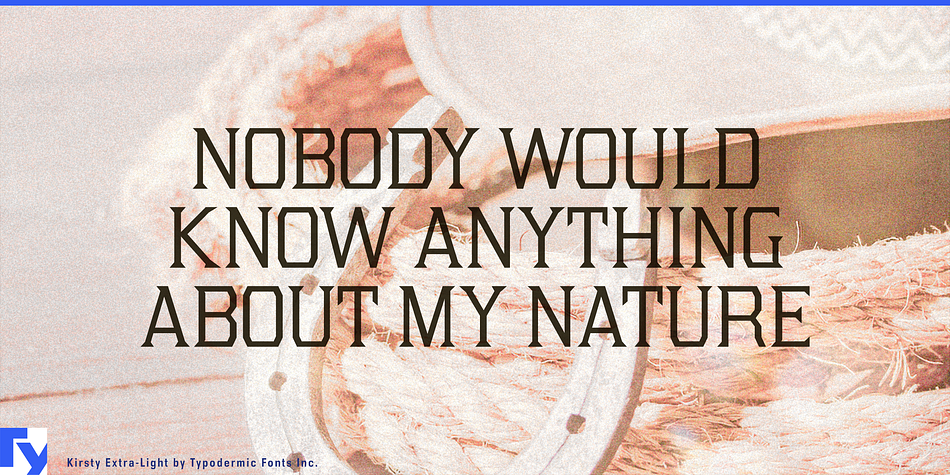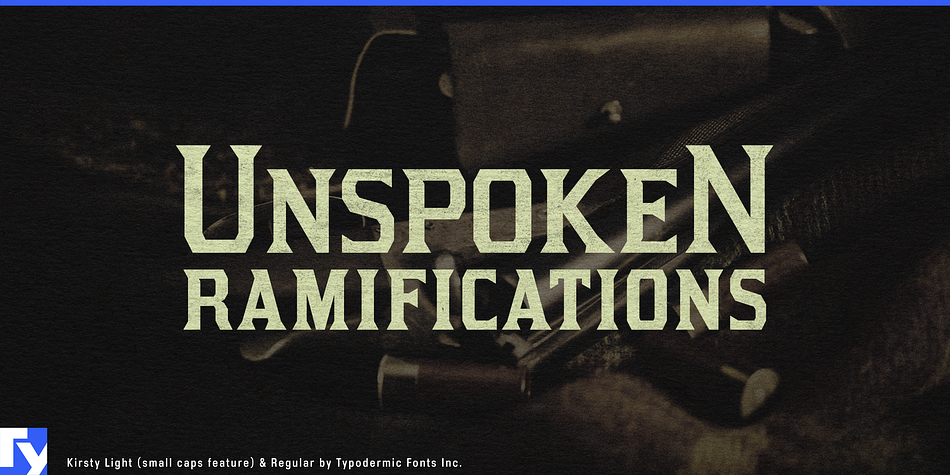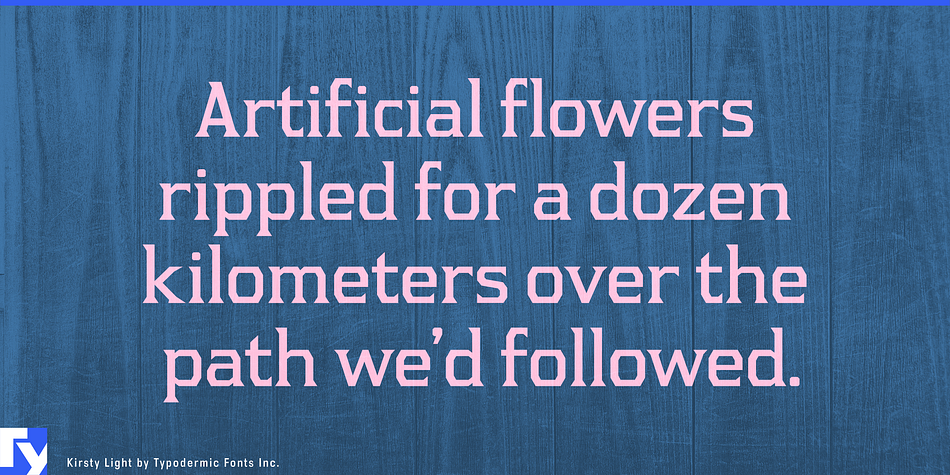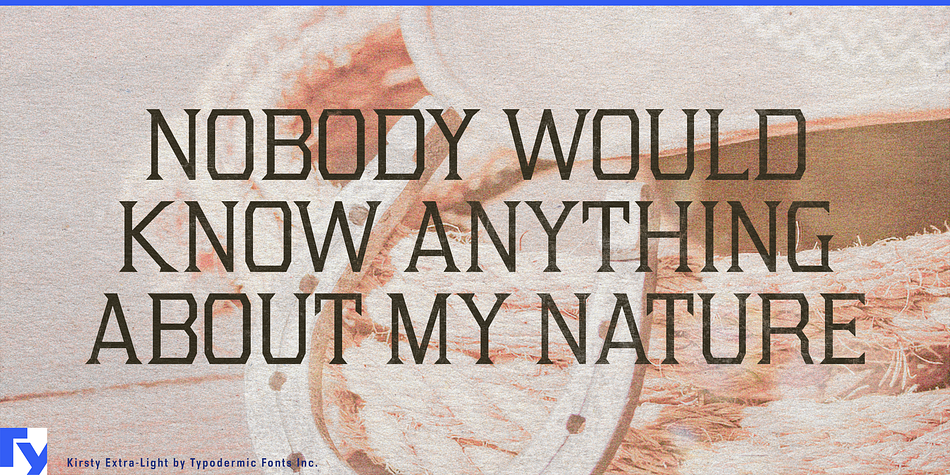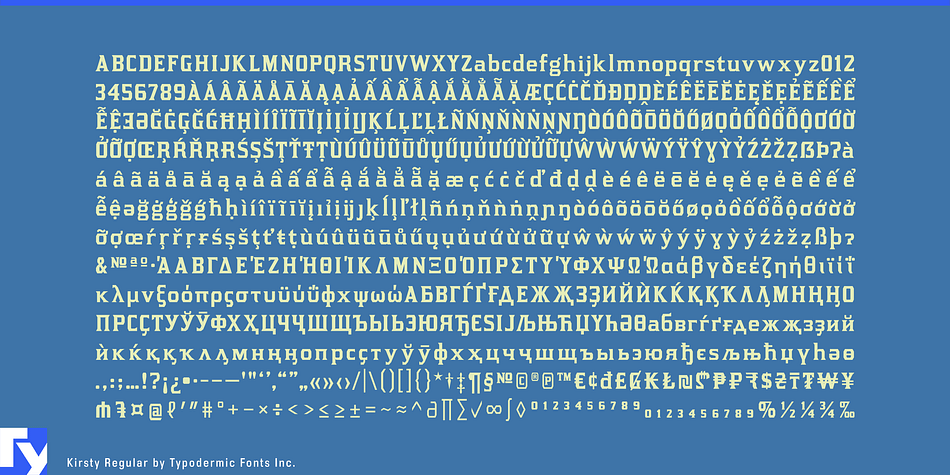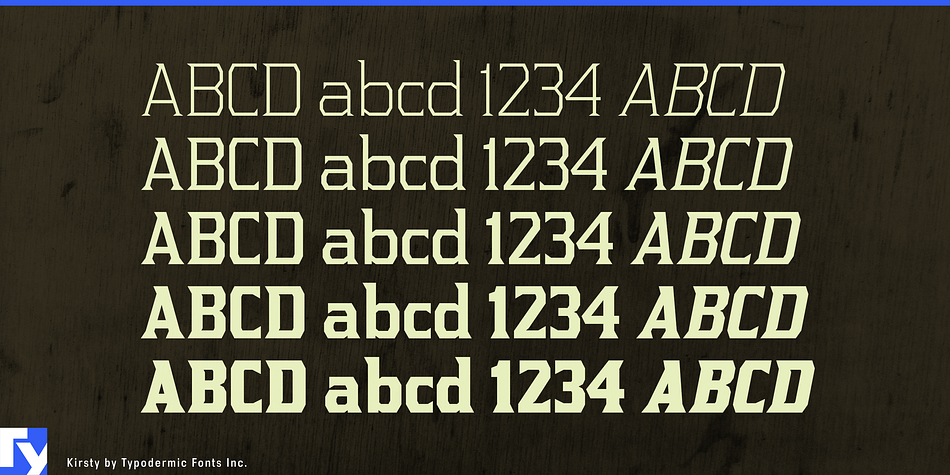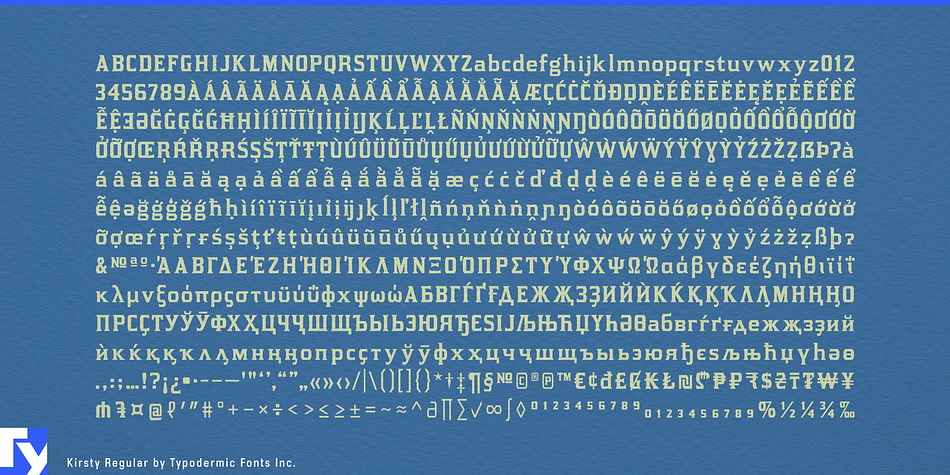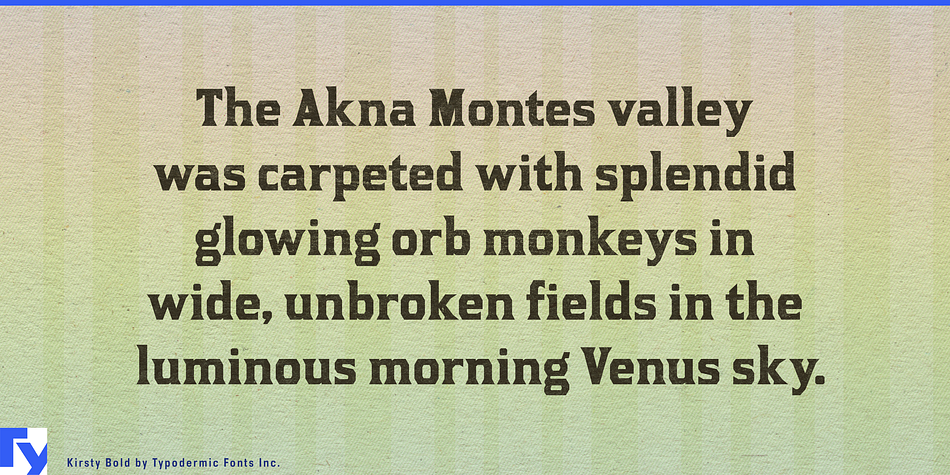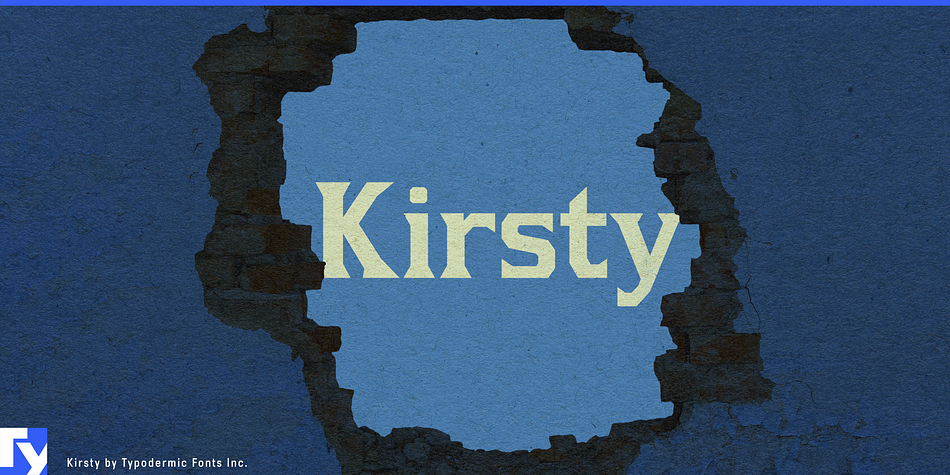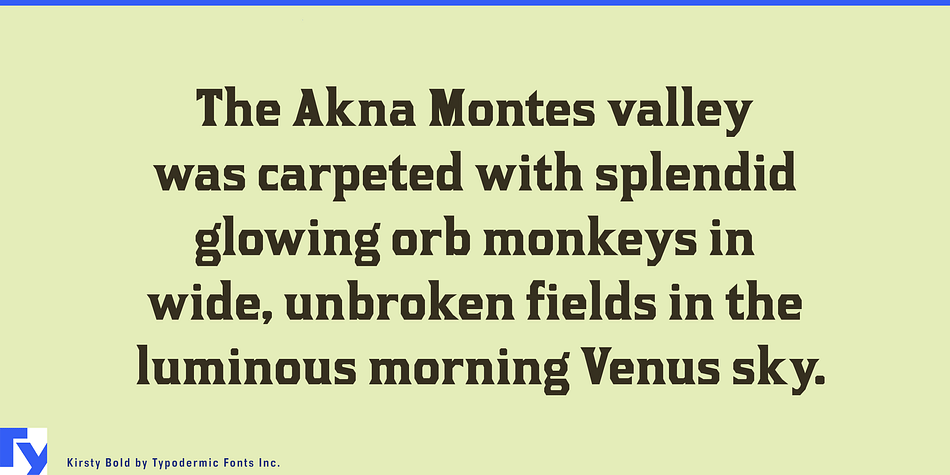
Kirsty is a display serif and display slab font family. This typeface has ten styles and was published by Typodermic Fonts Inc.
Kirsty is a sharp-serifed, octagonal typeface influenced by nineteenth century railroad lettering. It was released in 2000 in regular and bold with obliques and small caps instead of lowercase. The current version has a proper lowercase, five weights and obliques. Most current Latin alphabet based languages are supported as well as Greek and Cyrillic. Small caps are available if your application supports it. Not all languages are available in small caps.